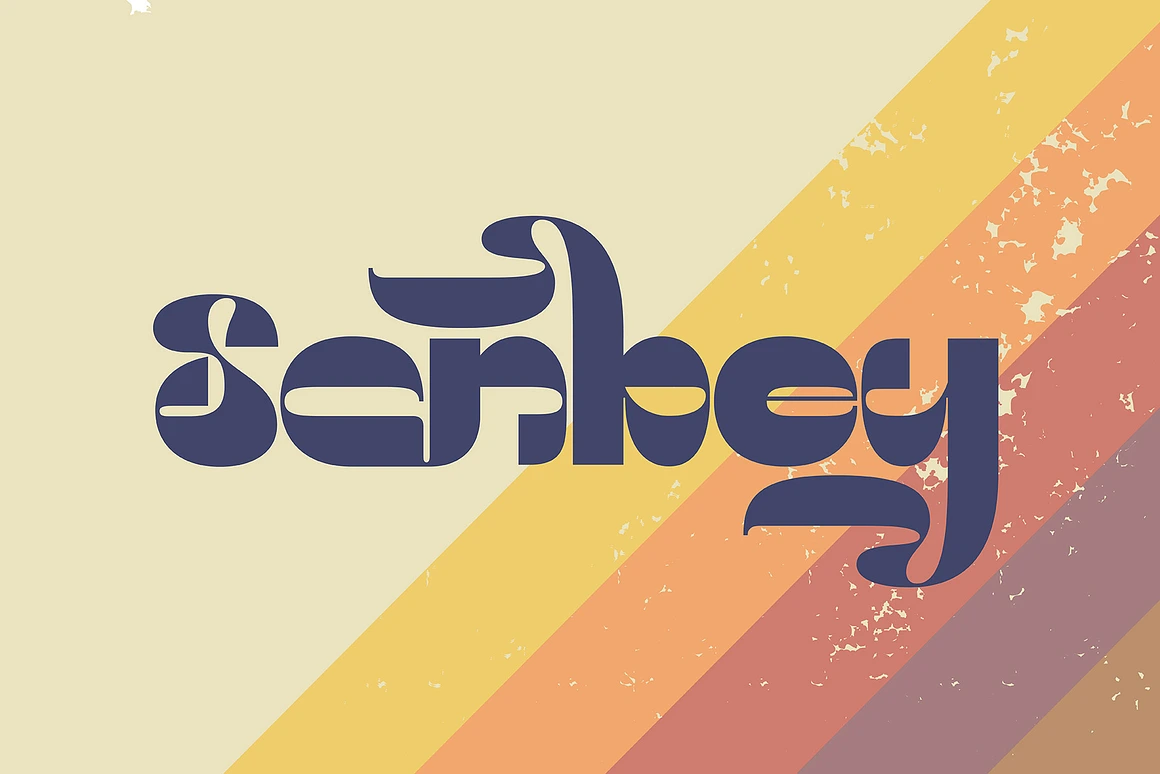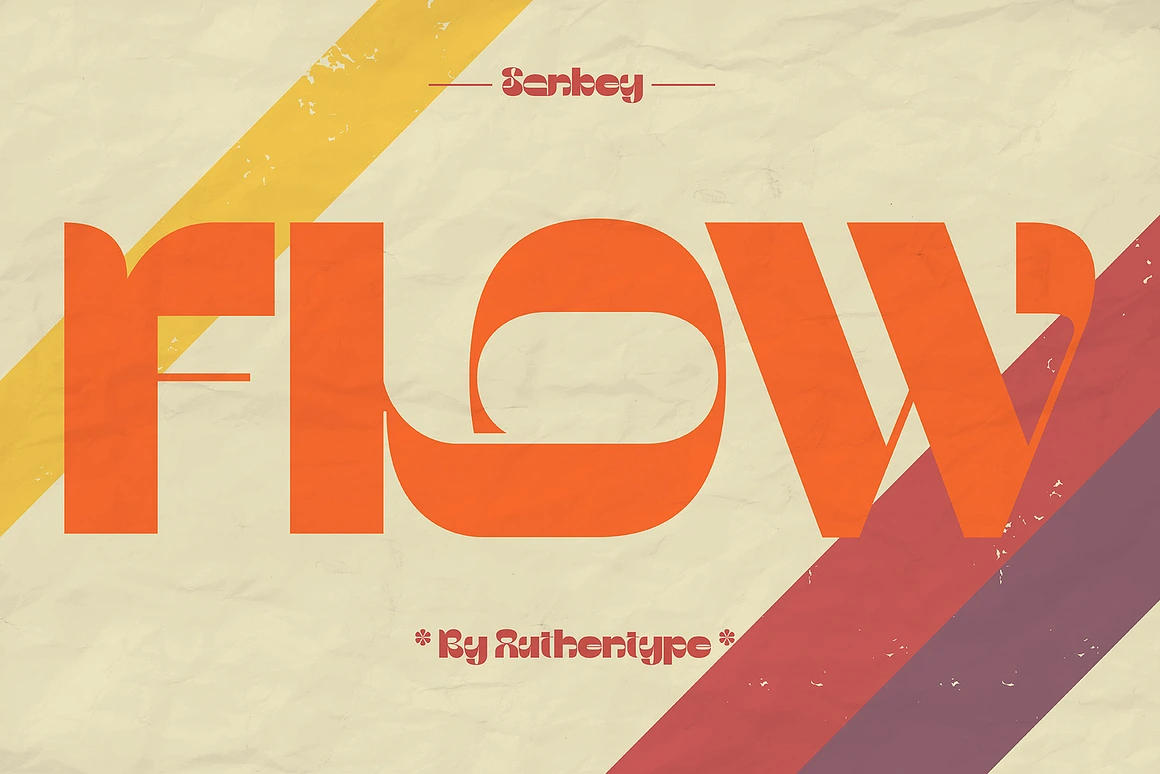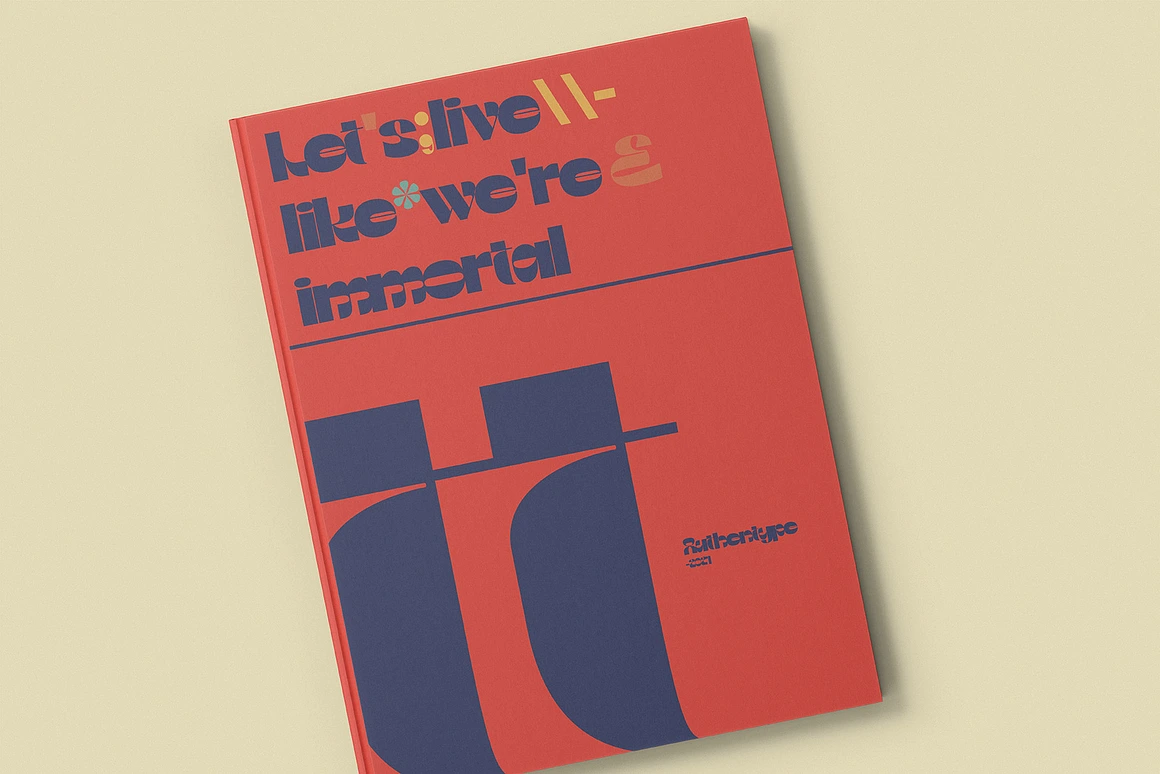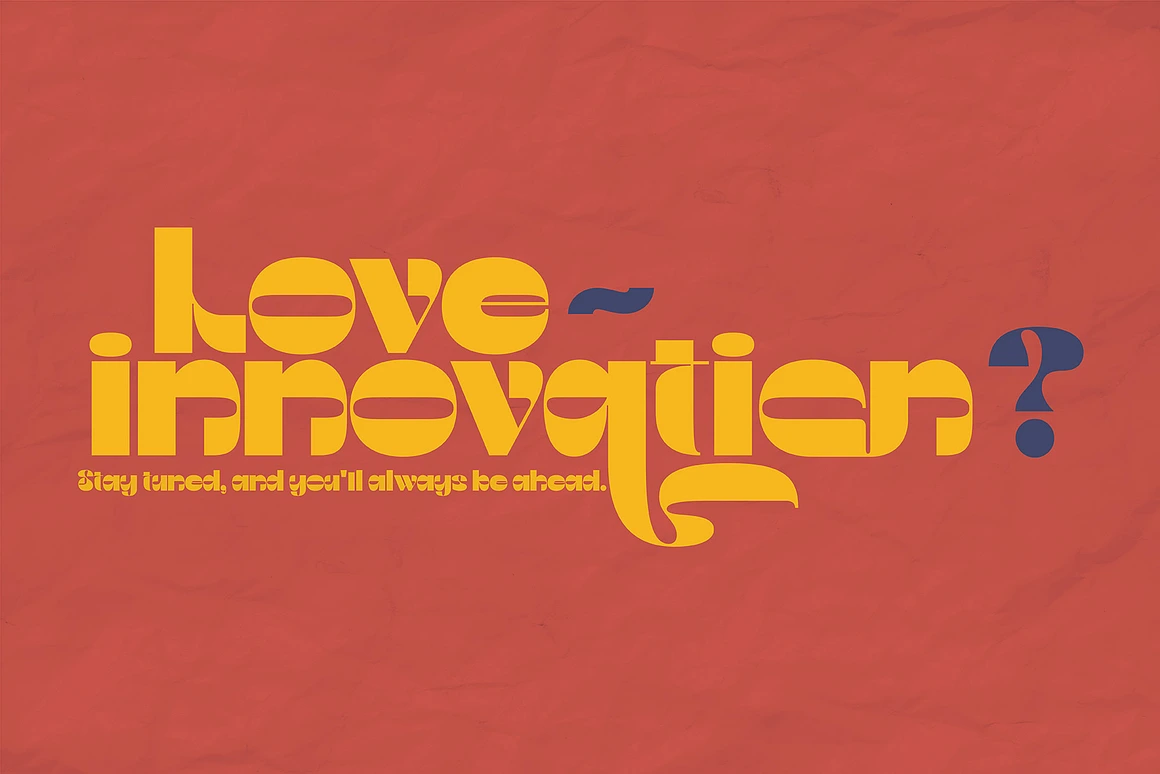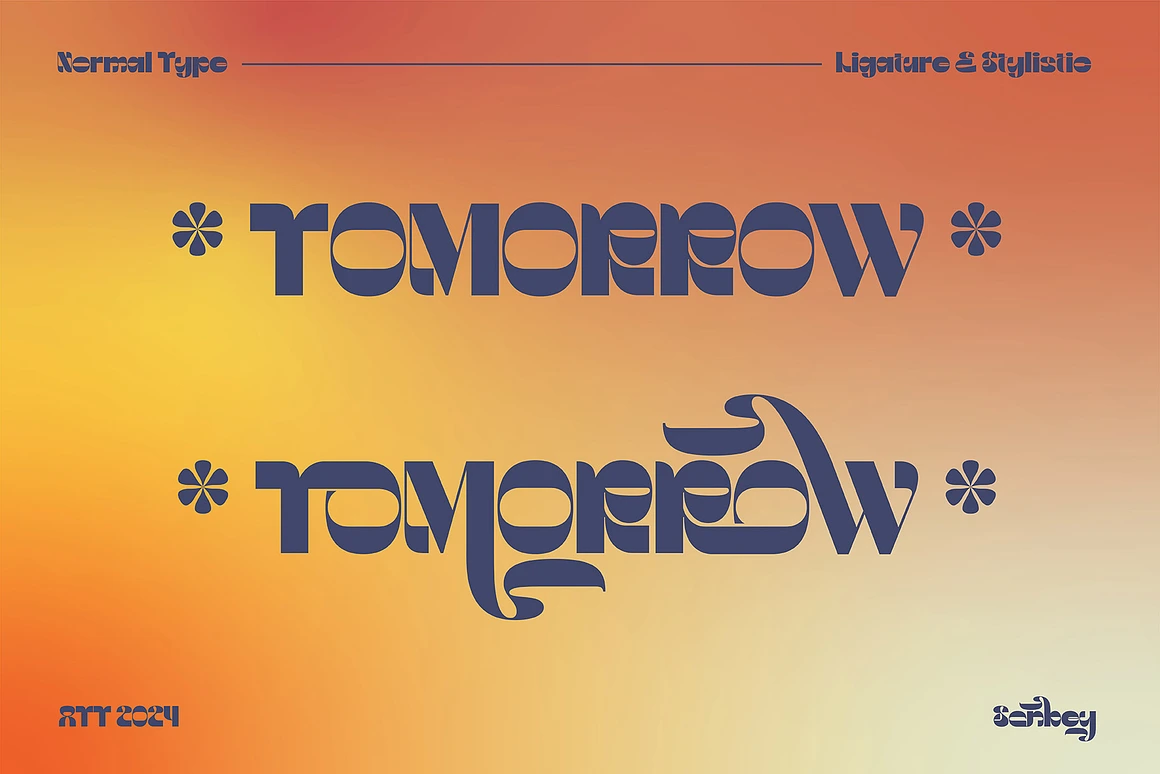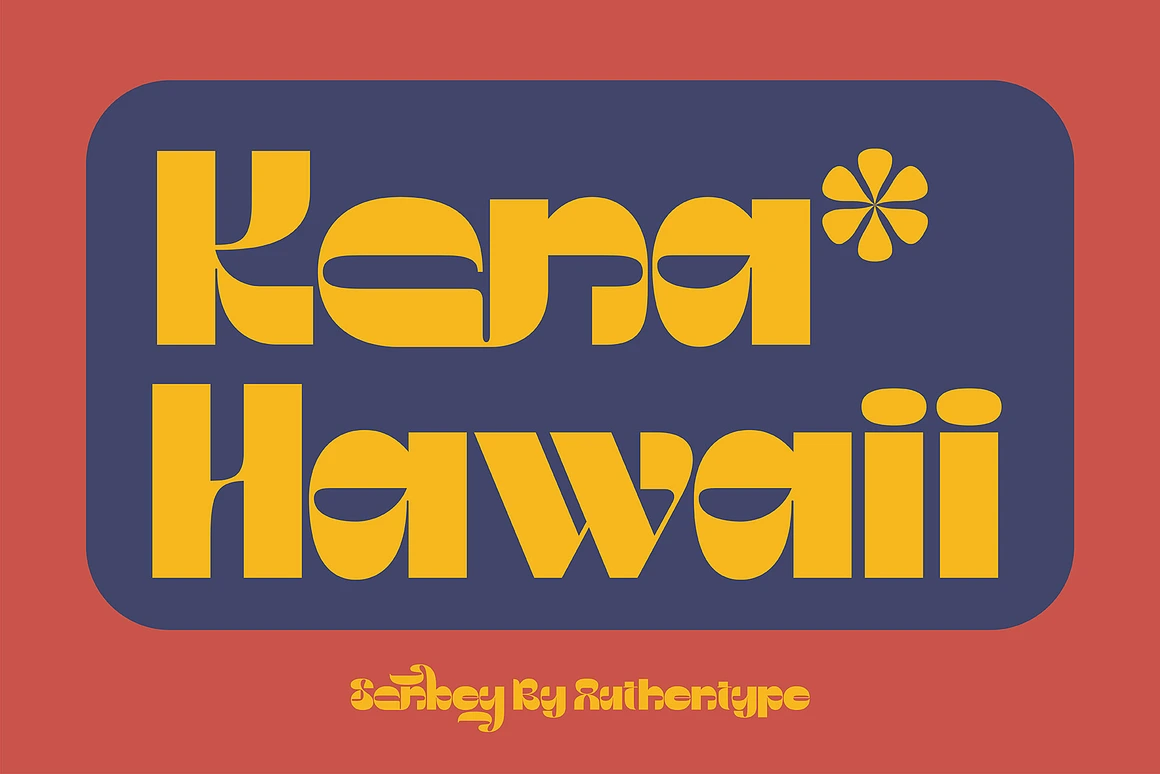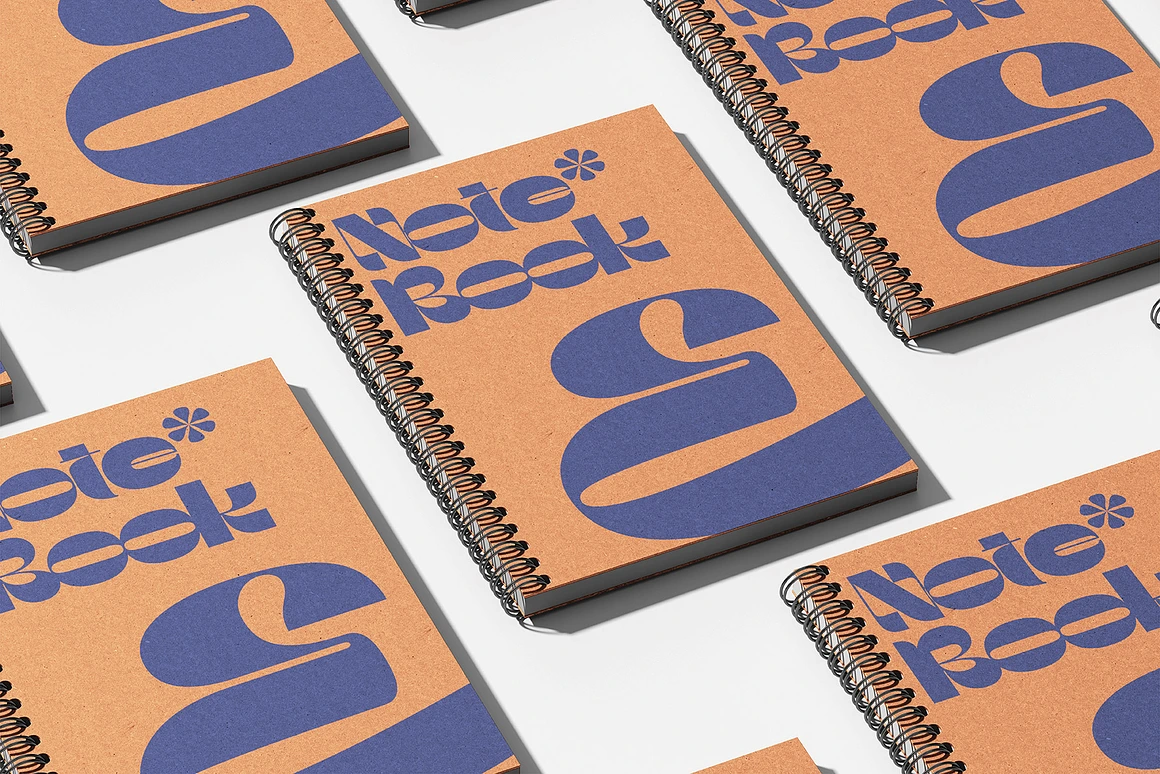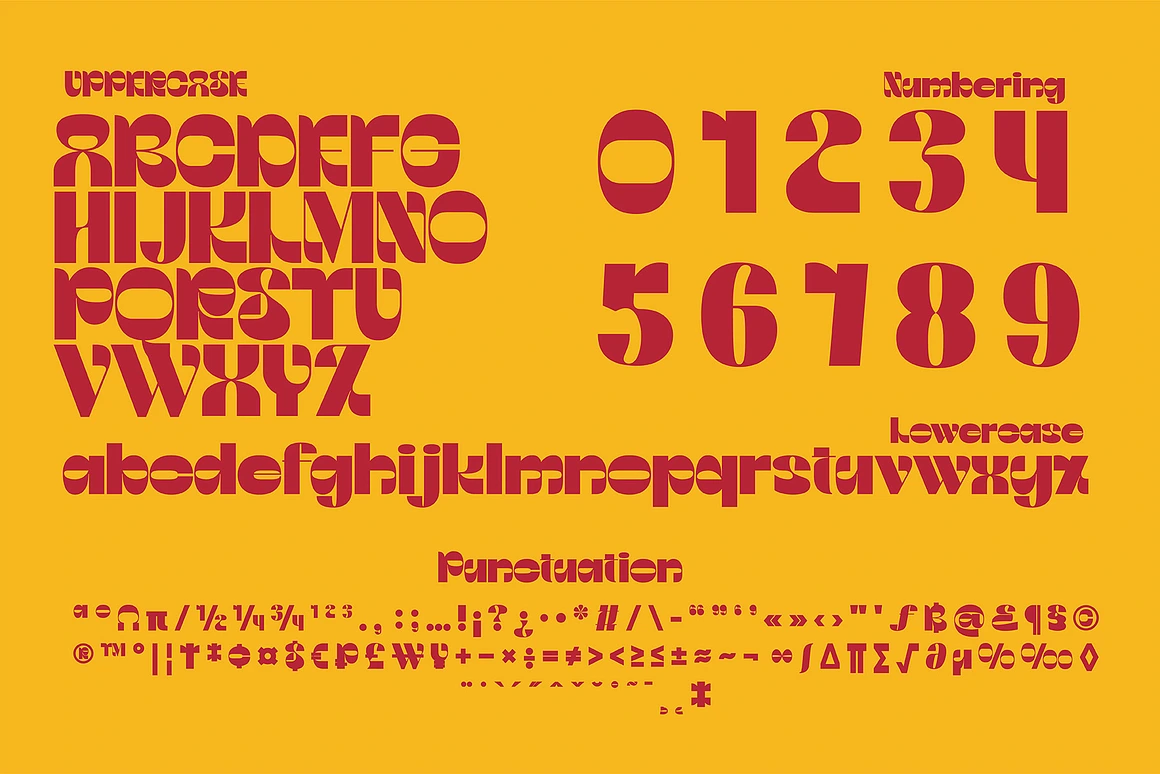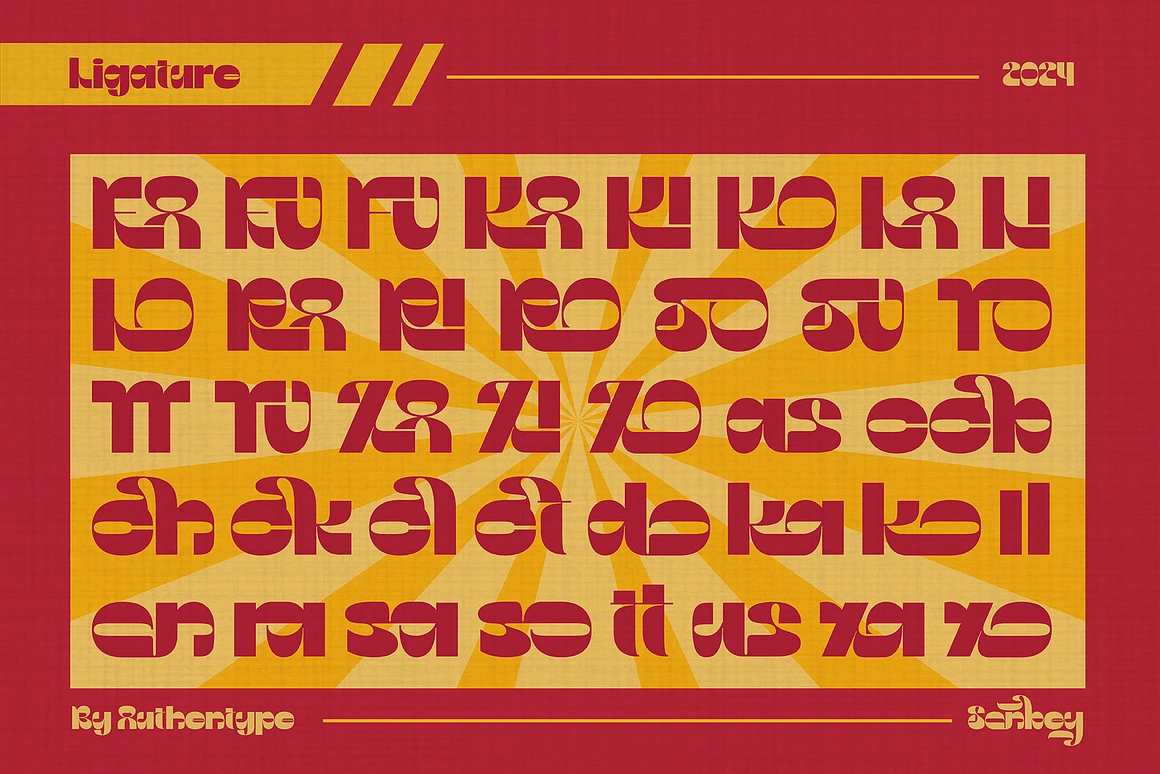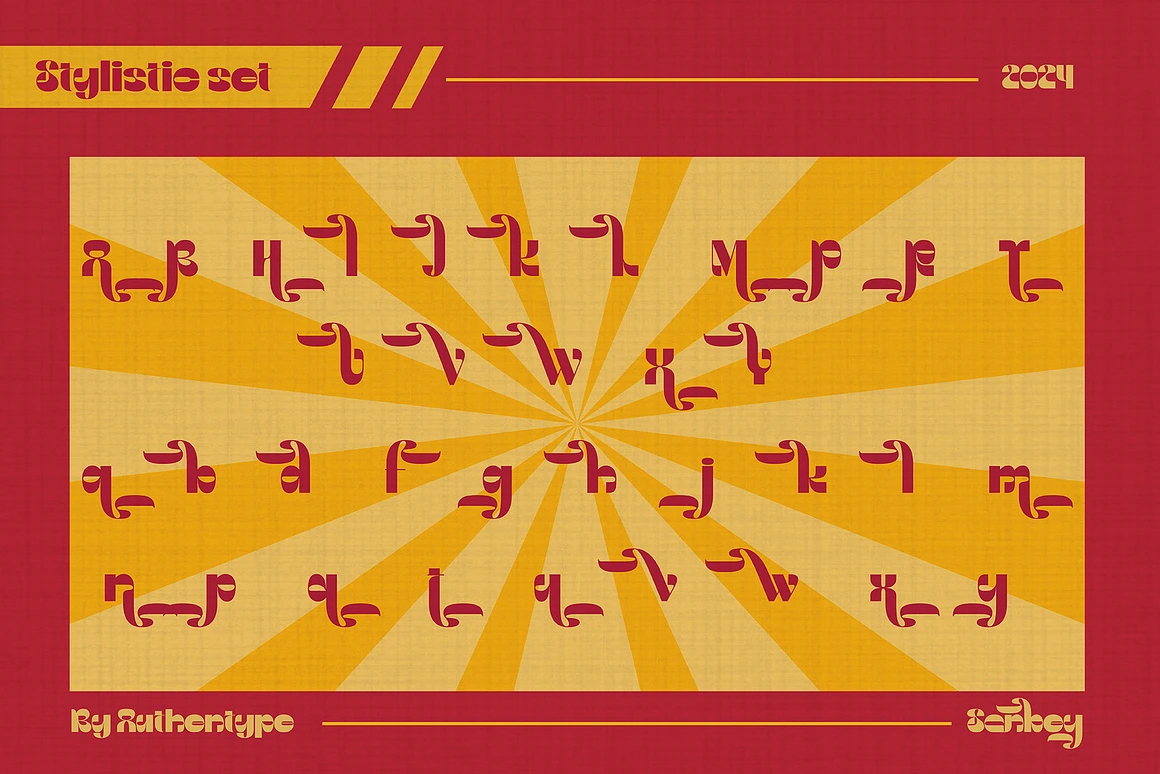
Sonbey - Retro Bold Experimental
Sonbey is a bold and experimental retro typeface that blends the charm of 70s and 80s geometric styles with a modern twist. Its unique letterforms feature playful curves and bold shapes, making it perfect for creative projects that aim to stand out. Whether you’re designing for posters, album covers, branding, or digital interfaces, Sonbey adds a nostalgic yet contemporary feel. Ideal for those seeking a vintage flair with a touch of futuristic elegance.
For suitable design types, this font could be used in several contexts such as:
Retro or Vintage Design – Advertisements or posters with a 70s or 80s vibe. Creative Branding – It could be used in logos or branding for fashion, music, or entertainment industries looking to stand out. Poster or Album Cover Design – This bold, distinctive style is perfect for event posters, music festival announcements, or album covers with a vintage theme. Digital Products – Interface or app designs that want to have a retro-futuristic touch. Expressive Typography – Used in headlines or titles that aim to capture attention with a bold and playful flair.
– Includes standard uppercase and lowercase glyphs
– Full set of numerals and a wide range of punctuation marks
– Supports both uppercase and lowercase letters
– Ligatures & Stylistic Set
– Provides multilingual support, including characters for: ä ö ü Ä Ö Ü ß ¿ ¡ ____